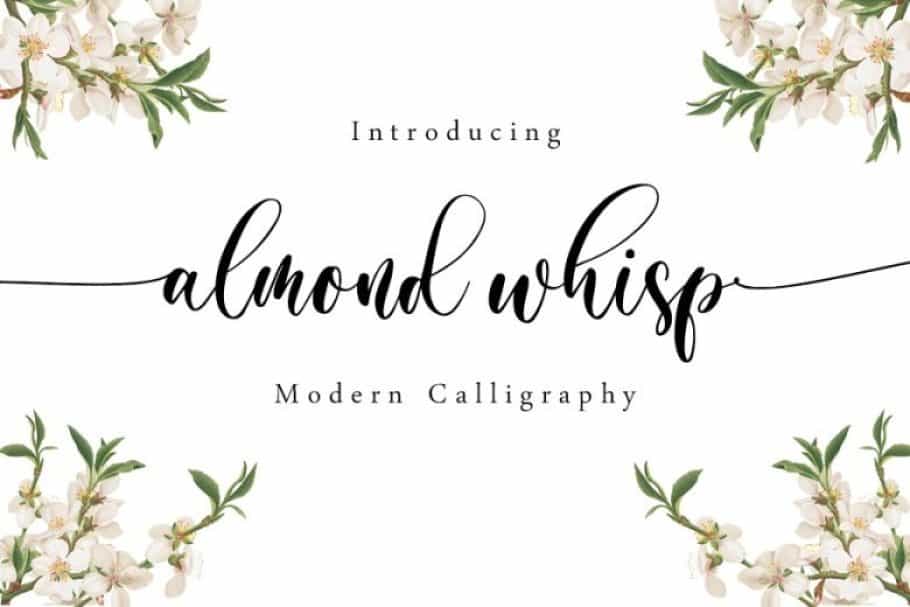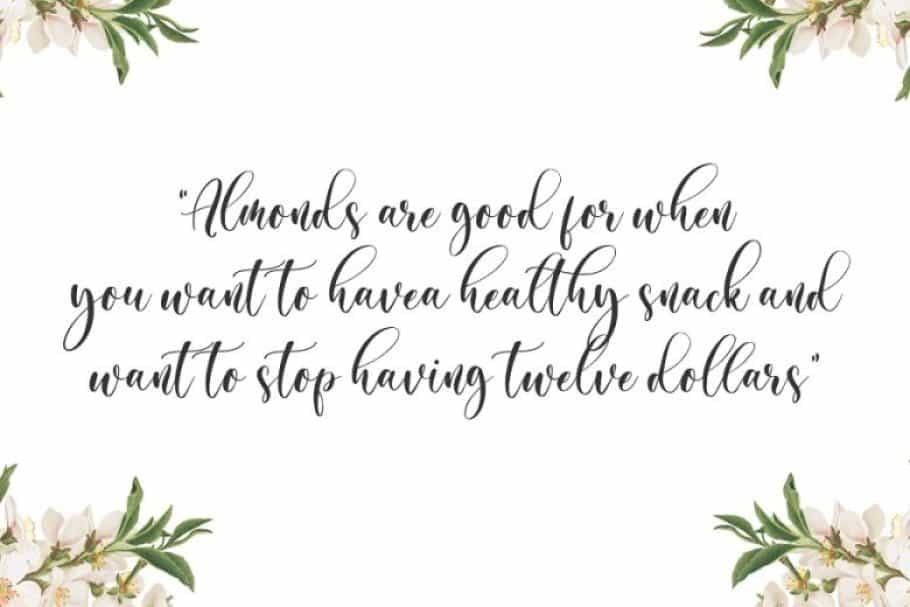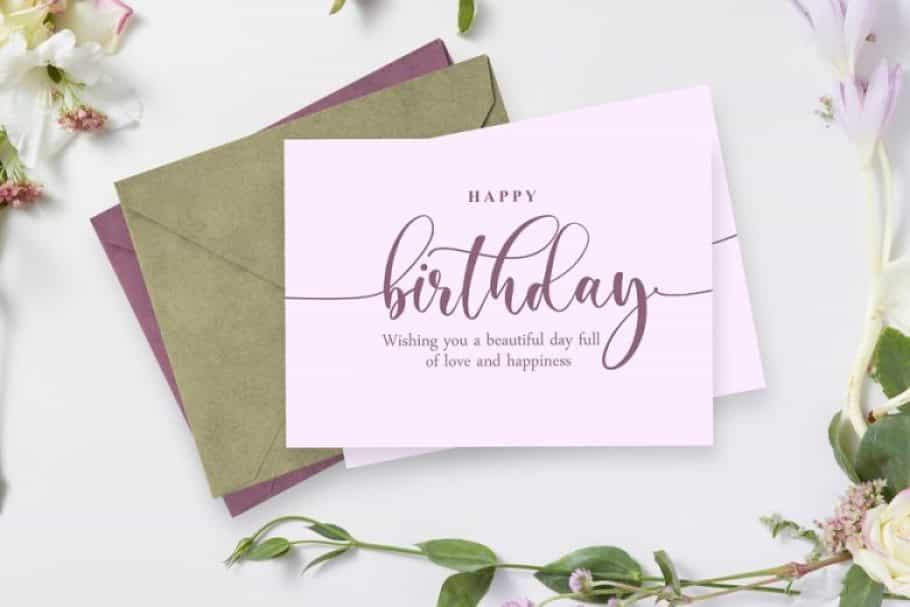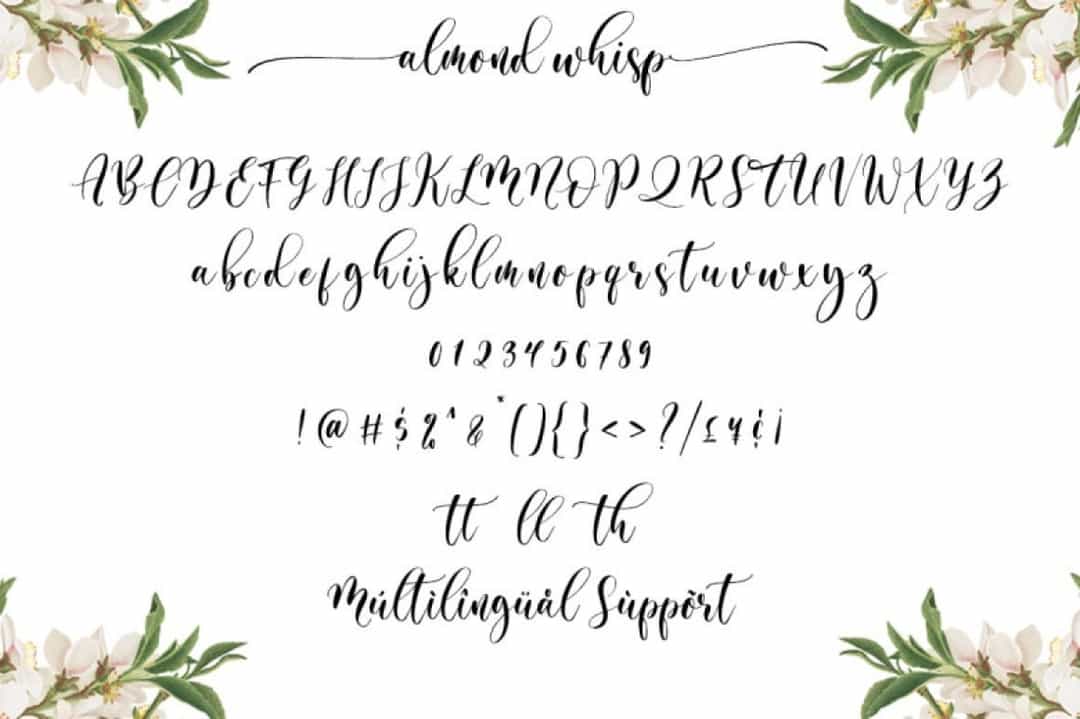
Almond Whisp Font is an elegant modern script typeface created from all things beautiful and delicious! Perfect for wedding invitations, branding logos magazines blogs photo overlays – plus much more!